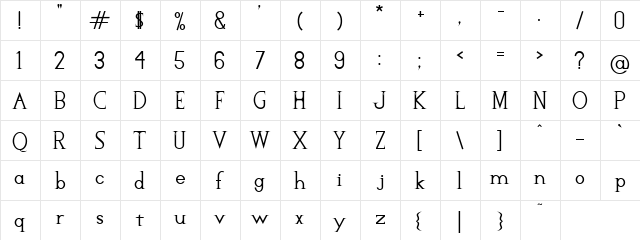
Rachel's Requiem Regular
Design Context for Rachel's Requiem Typeface
Rachel's Requiem is a composed and adaptable typeface that performs quietly and consistently across a wide range of design contexts.
Pro Tip: Pair Rachel's Requiem with a font of contrasting weight or personality to build a more expressive typographic hierarchy.